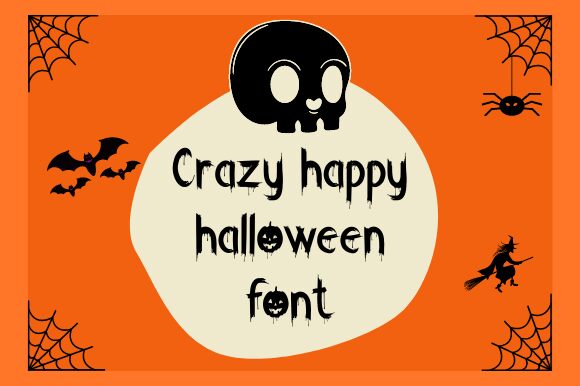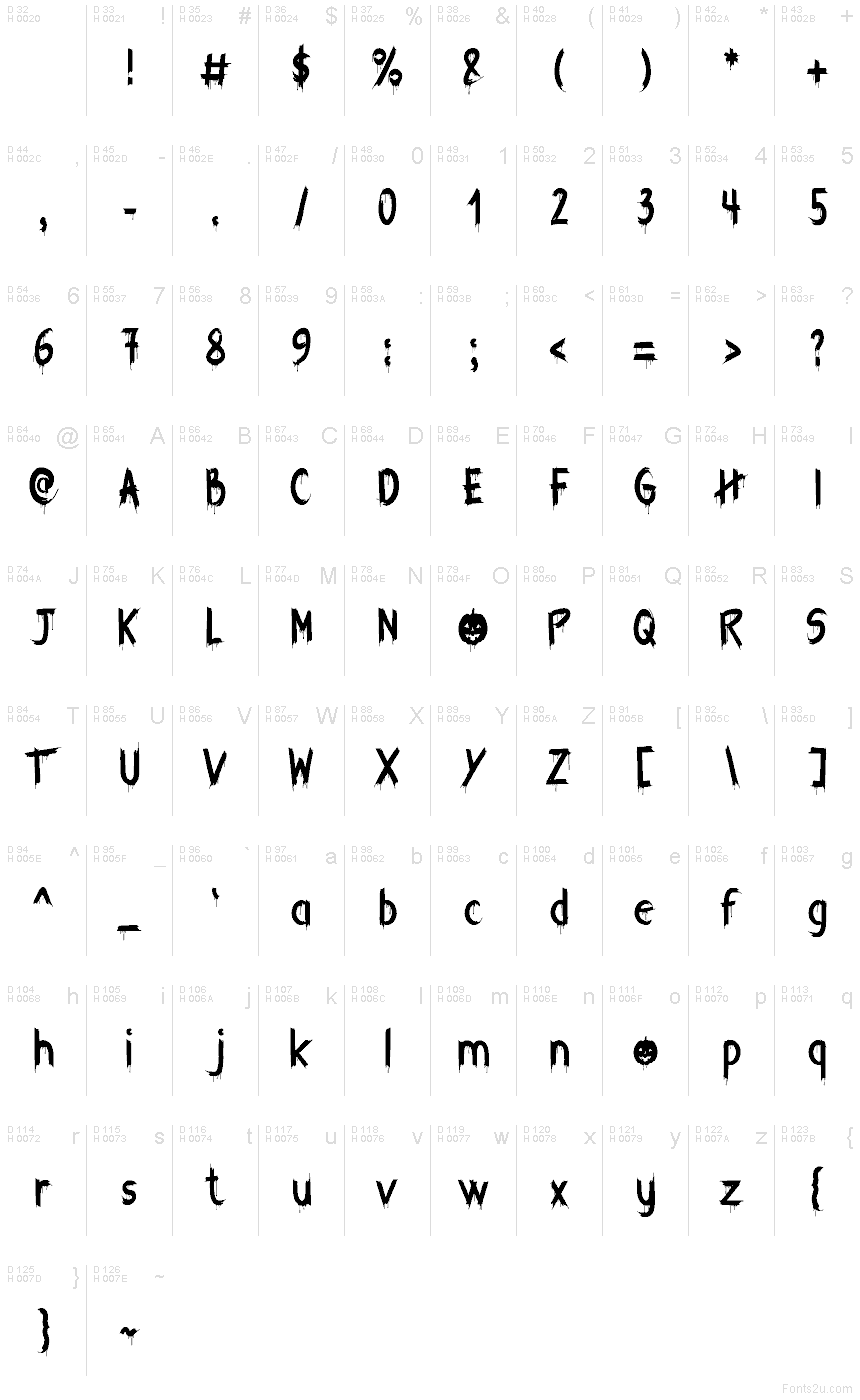
Crazy Happy Halloween Regular
Crazy Happy Halloween font by Julien Halgand is a free Halloween display font that fuses playful grins with gooey dread. Letters look hand-brushed and inky, with drips hanging off their feet and a cheeky jack-o’-lantern peeking from a counter, so the vibe lands between spooky and mischievous. The tall, slightly uneven rhythm reads fast while still feeling handmade, which makes headlines pop without losing legibility.
Using Crazy Happy Halloween, you can knock out party invites, haunted house posters, porch signs, candy-bag labels, social media teasers, and YouTube thumbnails in minutes. This free font shines on bold titles—set it large and give it a touch of extra tracking for air. Pair with a clean, neutral sans to keep the creepy charm in focus.